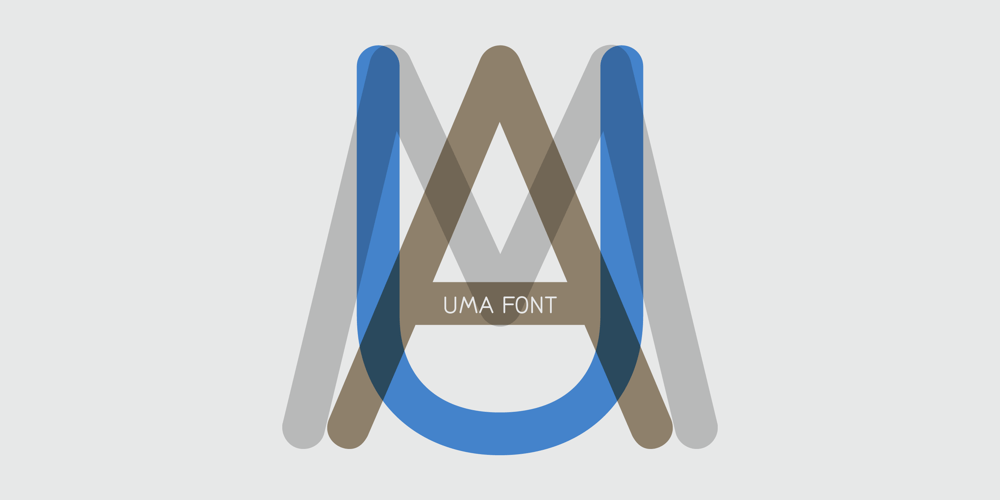
Uma Font Family was designed by Alejandro Paul, Ariel Di Lisio and published by Sudtipos. Uma contains 3 styles and family package options. Uma is a typeface family consisting of two weights: light and bold. The typography is fresh, informal and friendly at first glance, but the constructive architecture makes it elegant and modern. It works equally as well in large or small sizes, and the combination between the two weights is very interesting to work with. It is a contemporary typeface, ideal for use in magazines, brochures, flyers and advertising among other applications. Uma may seem simple at a first glance, but it is very functional and professional, with aesthetic enchanting details. Uma has a wide range of functionality and has a great personality. Designed by Ariel Di Lisio and digitized by Ale Paul, Uma includes alternates, fractions, ligatures and a wide range of latin languages.